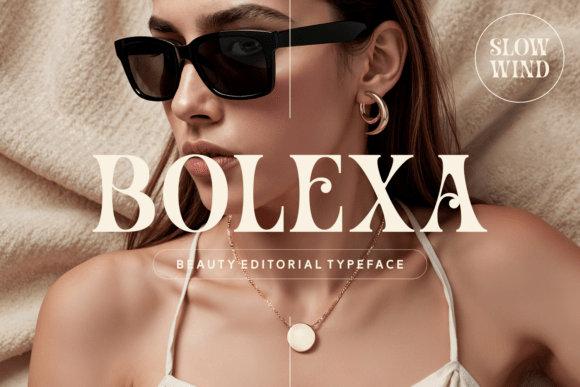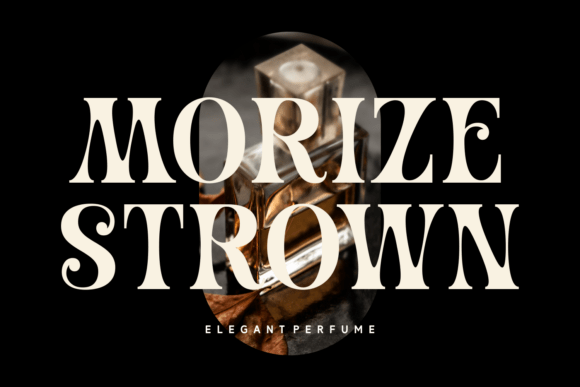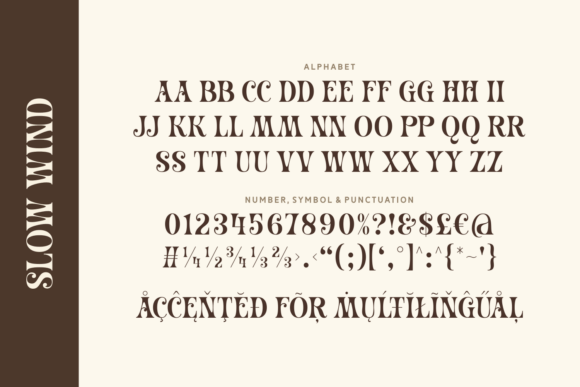
Discover the Timeless Charm of Slow Wind Font
Have you ever found yourself scrolling through a vintage market, mesmerized by the nostalgic charm of retro advertisements and posters? The thrill of discovering unique design elements that evoke a bygone era is a treasure for designers. It’s a moment that sparks creativity and sets the imagination ablaze. One such design element that captures this essence is the Slow Wind Font, a bold retro serif typeface that brings vintage charm with a modern twist.
For designers seeking high-quality design resources, Slow Wind Font is a valuable addition to their toolkit. With its high-contrast strokes and stylish curves, this font is perfect for creating eye-catching posters, logos, packaging, and editorial designs. Whether you’re working on a creative project that requires a timeless aesthetic or simply looking for a free download to add some vintage flair to your designs, the Slow Wind Font is an excellent choice.
Key Features of Slow Wind Font
• High-quality design: Slow Wind Font is a well-crafted, professional font perfect for any creative project.
• Unique style: Slow Wind Font boasts a distinctive, elegant design that sets it apart from other fonts.
• Design resource: Slow Wind Font is an ideal design resource for creative projects, including graphics, logos, and typography.
Honest Review: Slow Wind Font
I recently came across the Slow Wind Font and was intrigued by its unique design. As a designer, I appreciate high-quality fonts that can elevate a creative project and make it stand out. This font definitely delivers.
• ✨ Unique and creative design that can add a touch of personality to a project
• ⚠️ Limited number of font styles available, which may not be suitable for projects that require multiple font variations
• ⚠️ Font may not be suitable for small text sizes due to its unique design
Overall, I’m impressed with the Slow Wind Font and would definitely recommend it to designers looking for a high-quality, unique font for their creative projects. While it may have some limitations, it’s definitely a design resource worth exploring.
The Slow Wind Font is commonly used in creative projects, such as graphic design, branding, and advertising. It’s also a popular choice for social media graphics, blog posts, and website content. The font’s unique style and high-quality design make it a great addition to any project.